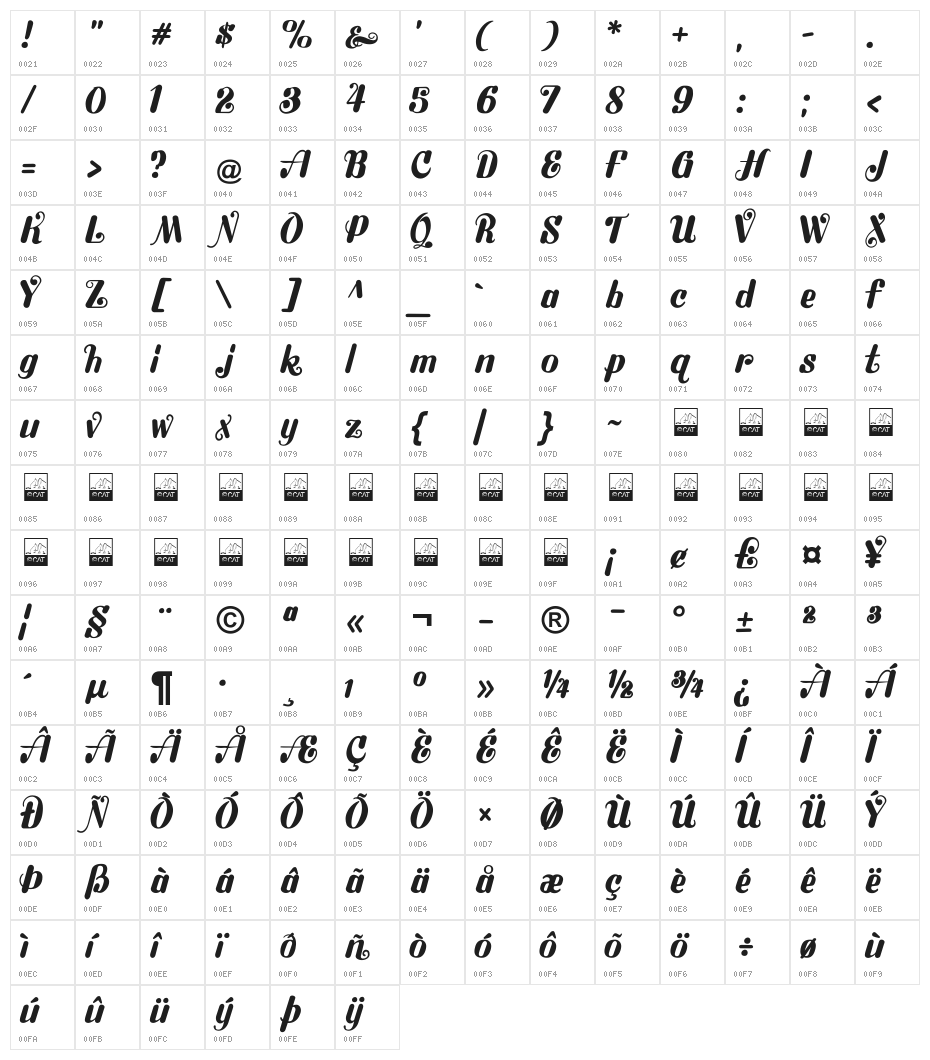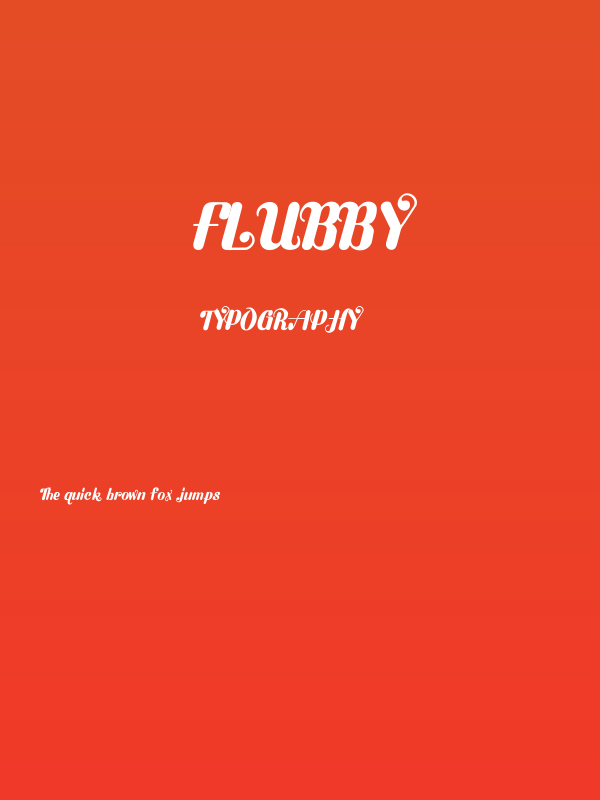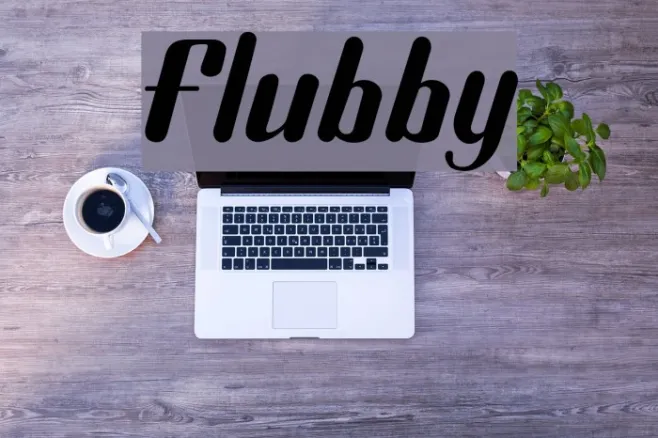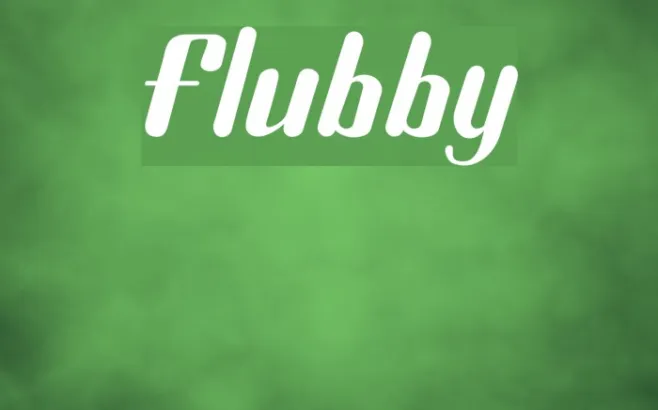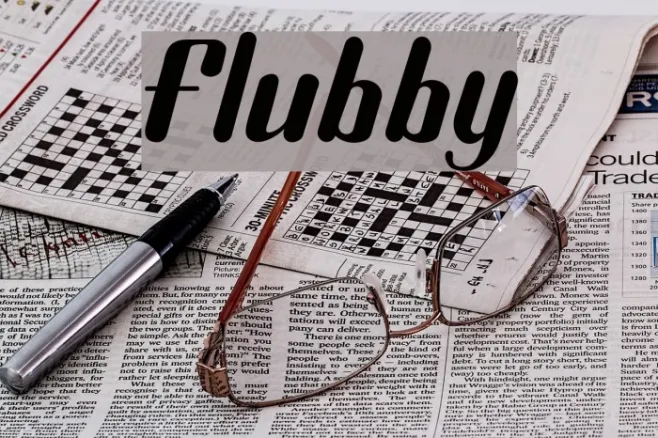
Flubby Font
Flubby Description
This font features a bold and playful script style with a distinctive flair. The characters are designed with a high contrast between thick and thin strokes, giving it a dynamic and lively appearance. The uppercase letters are particularly ornate, with swashes and curls that add a decorative touch. The lowercase letters maintain the same playful style, with rounded forms and smooth curves. Numbers and special characters are equally bold and expressive, making them stand out. This font's unique style makes it suitable for creative and eye-catching designs.